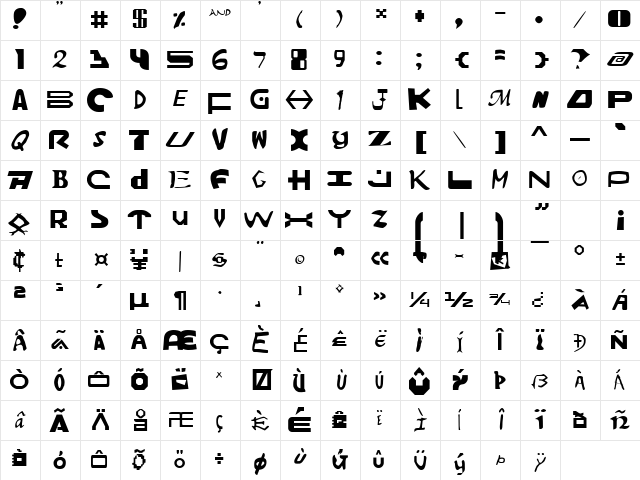
Amalgam Regular
Design Context for Amalgam
Amalgam is a composed and adaptable typeface that performs quietly and consistently across a wide range of design contexts.